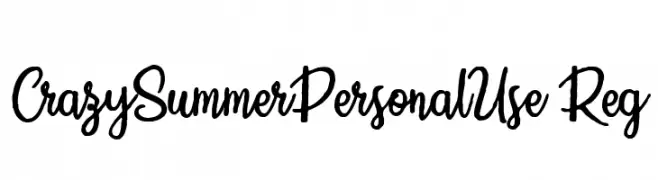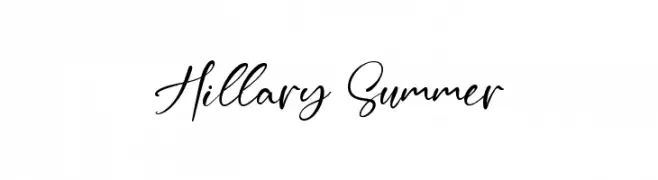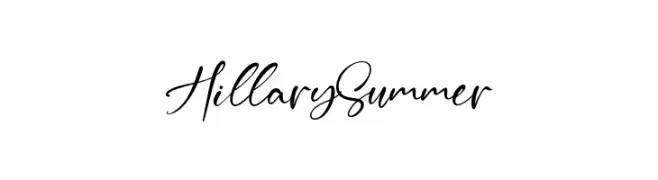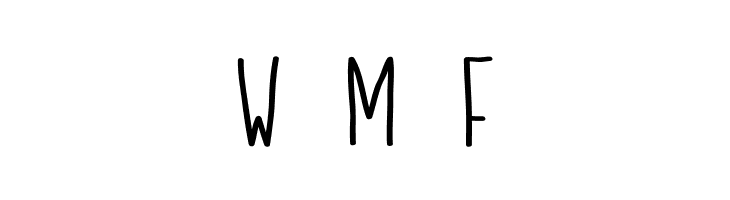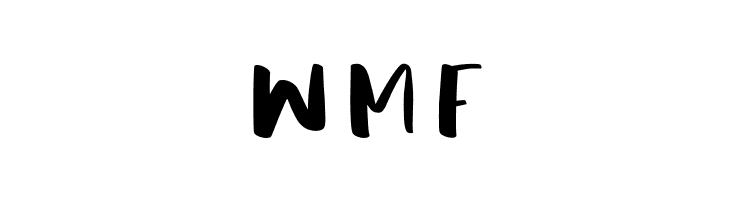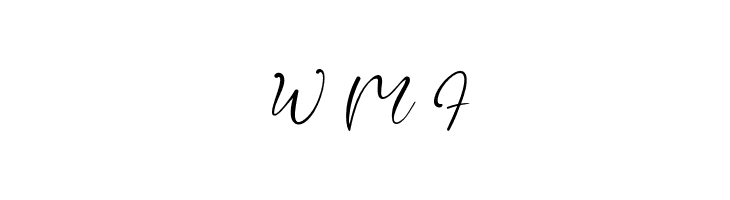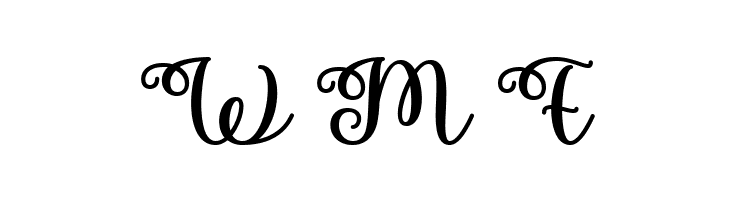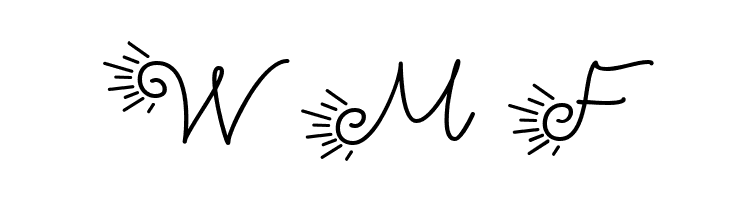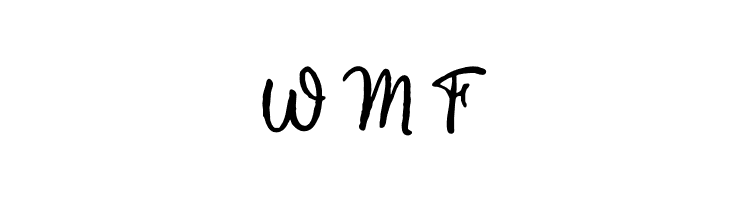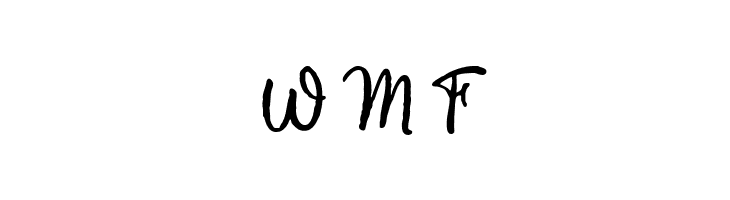
A playful, handwritten font with tall, narrow letters and a whimsical style.
A playful, vintage-inspired font with dynamic contrast and smooth curves.
A bold, playful handwritten font with thick, rounded strokes and energetic flow.
A graceful, cursive script font with elegant, flowing lines.
An elegant, cursive handwritten font with smooth, flowing strokes.
A playful and whimsical decorative script font with elegant swirls.
A playful, decorative font with whimsical uppercase and cursive lowercase letters.
A playful and energetic script font with a hand-drawn aesthetic.
A playful, energetic script font with flowing cursive letters.
A bold, dynamic script font with flowing, interconnected letters and decorative lines.